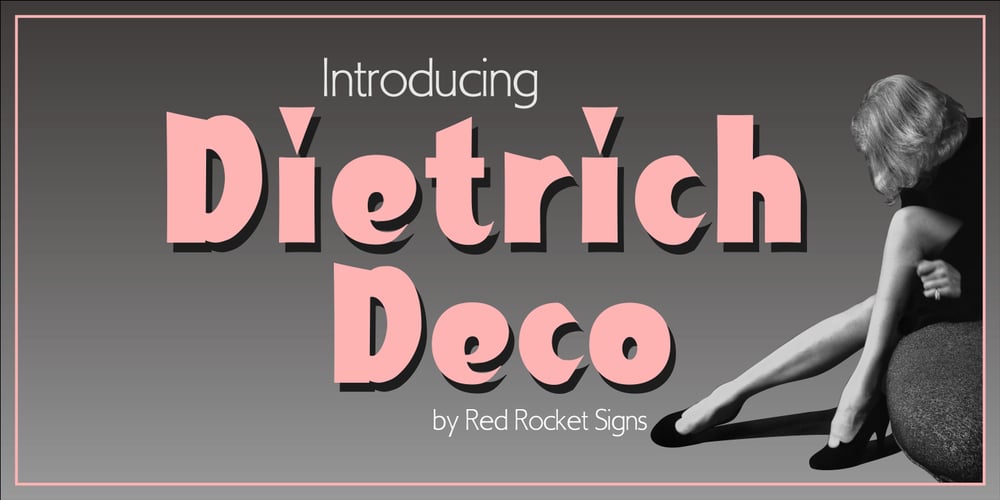
Dietrich Deco
Dietrich Deco font
Dietrich Deco Font Family was designed by Rodney Vicik and published by Red Rocket Signs. Dietrich Deco contains 1 styles and family package options. If you like vintage hand-painted signs and sho’cards then you will love Dietrich Deco. Inspired by theatre posters that advertised a 1930 Marlene Dietrich movie, Dietrich Deco has all the nuances of real brush lettering. It harks back to a time when lettering had artistic flair instead of so many of the sterile, predictable examples we see today. It is a bold font, yet the characters take up about as much space as medium weight fonts making it perfect for headings where overall length is a concern. Sometimes we choose a font we feel is perfect for a project only to discover that it lacks an apostrophe or quote marks. You will be glad to know that even though Dietrich Deco was primarily intended for headings that appear on retro signs and posters, it also contains both upper and lowercase characters as well as all special characters, punctuation and symbols. Whether you need to create a 30s style logo or a 60s style surfing poster, Dietrich Deco will deliver the message.